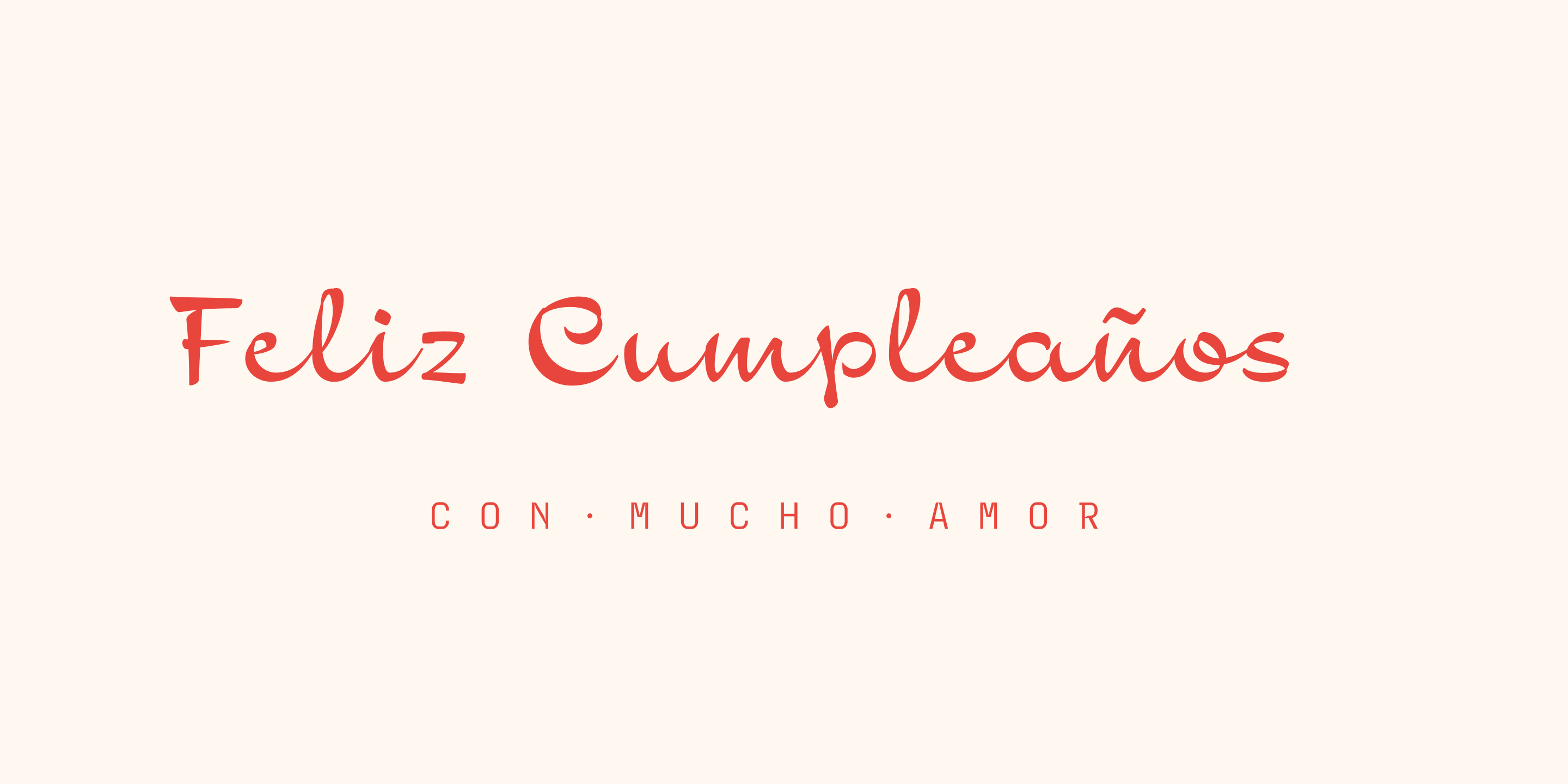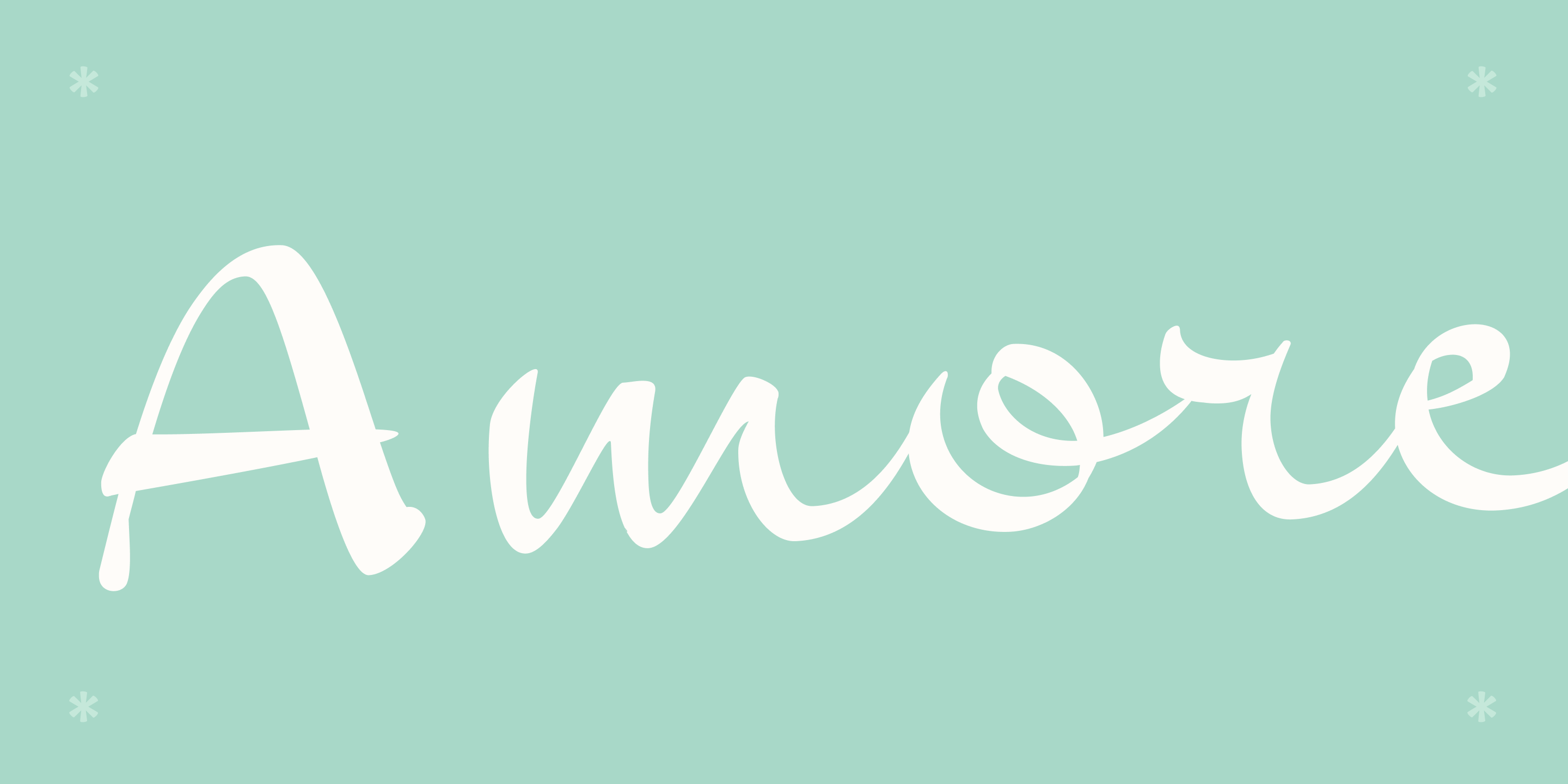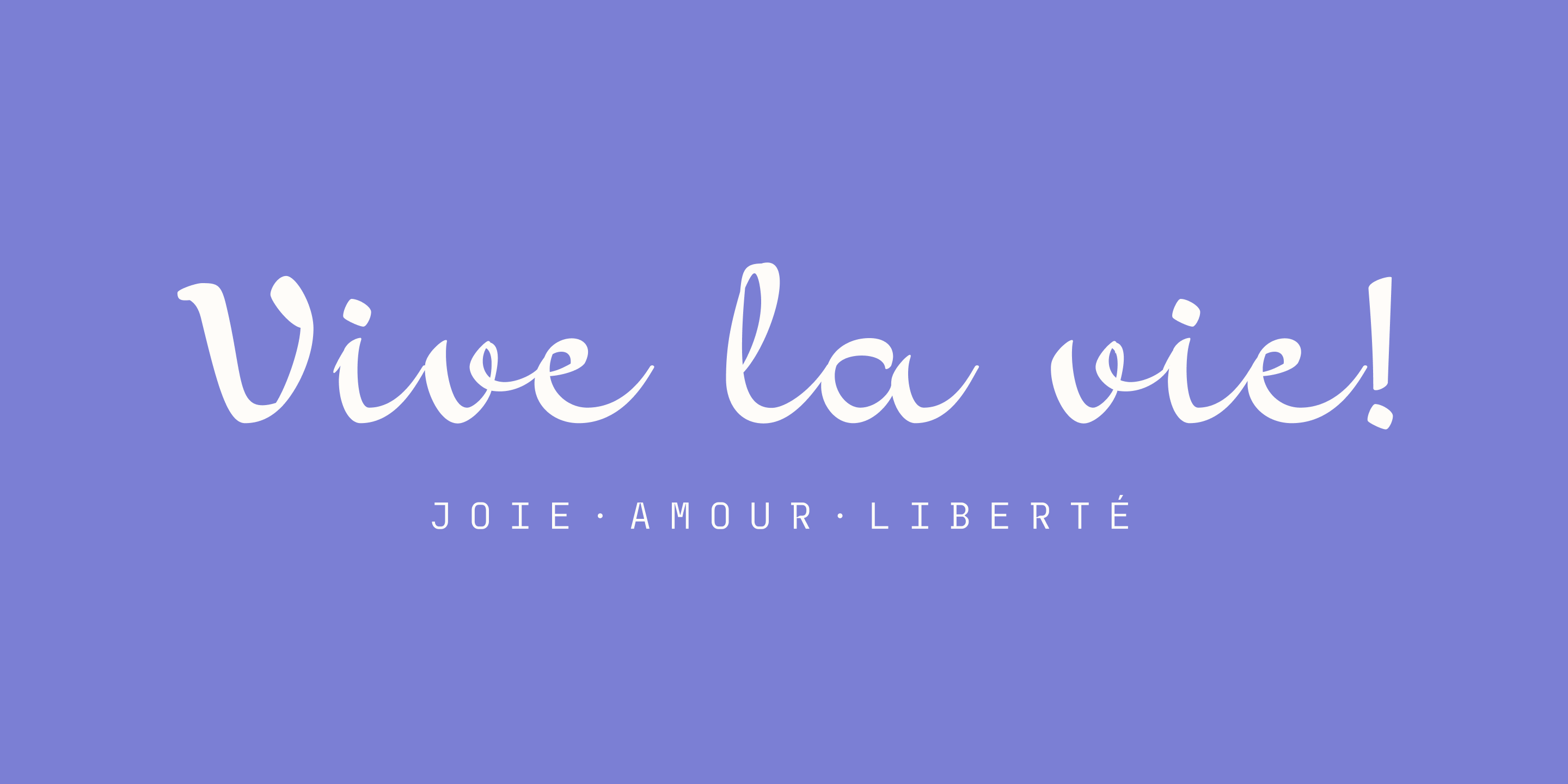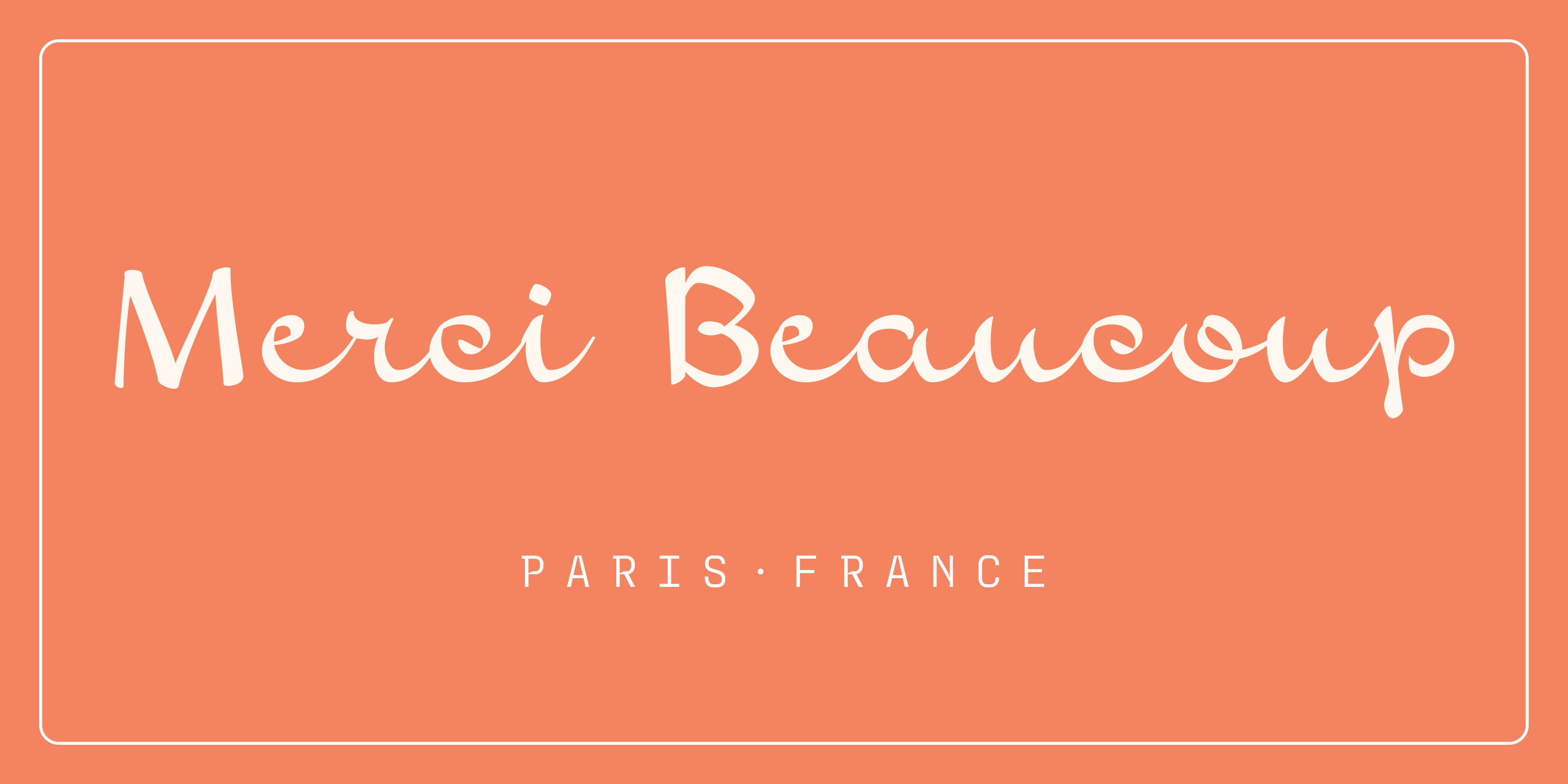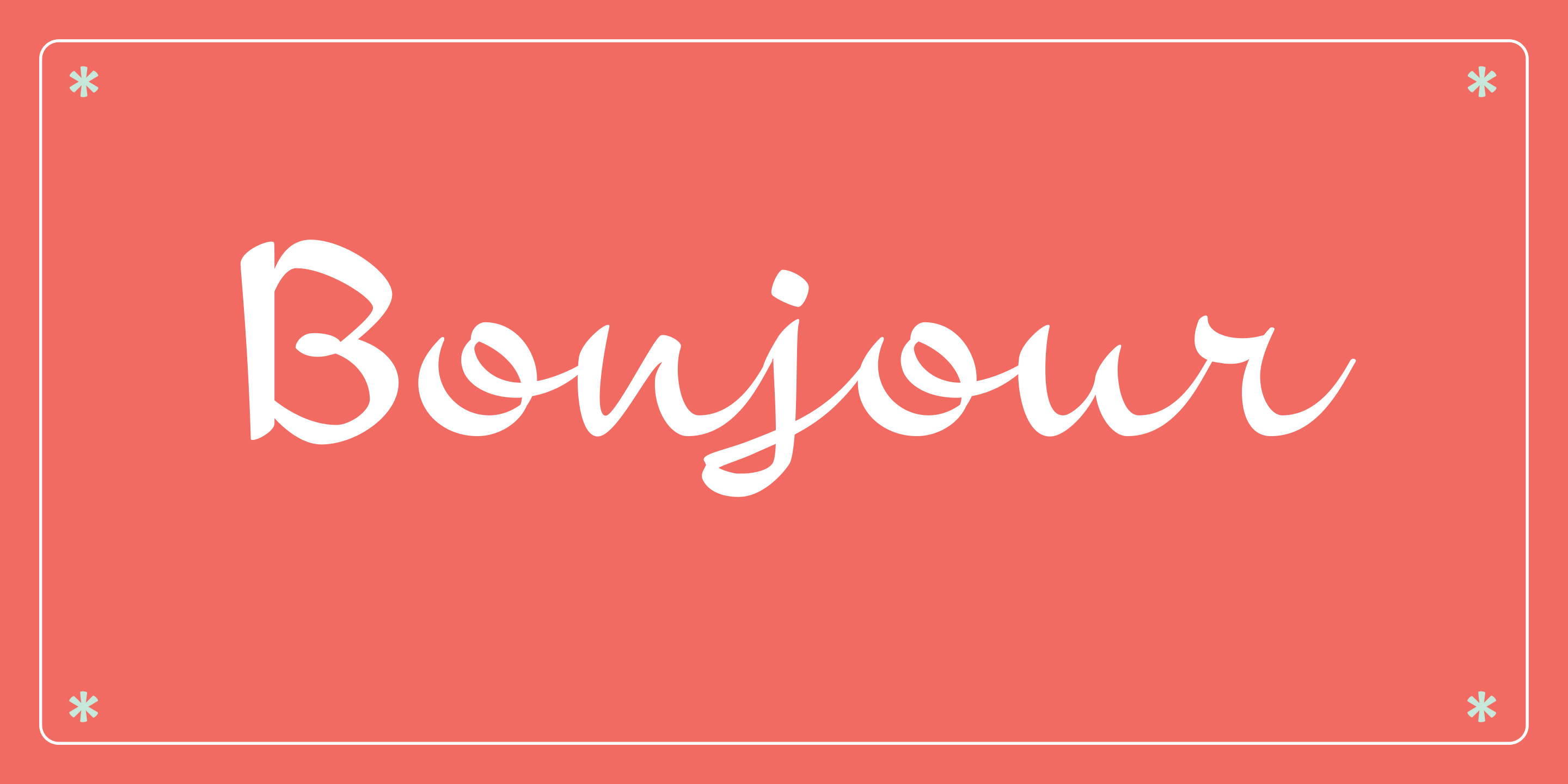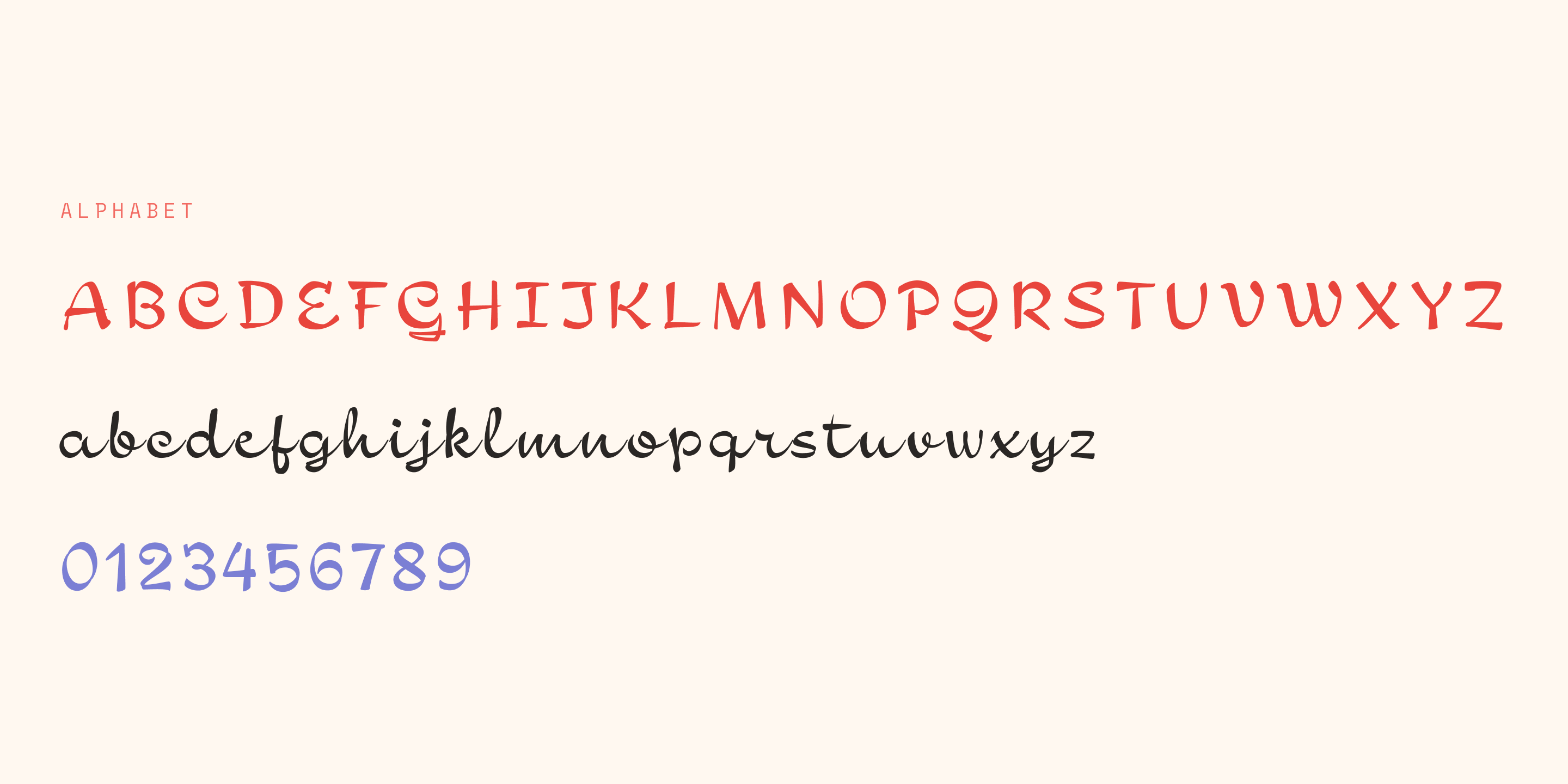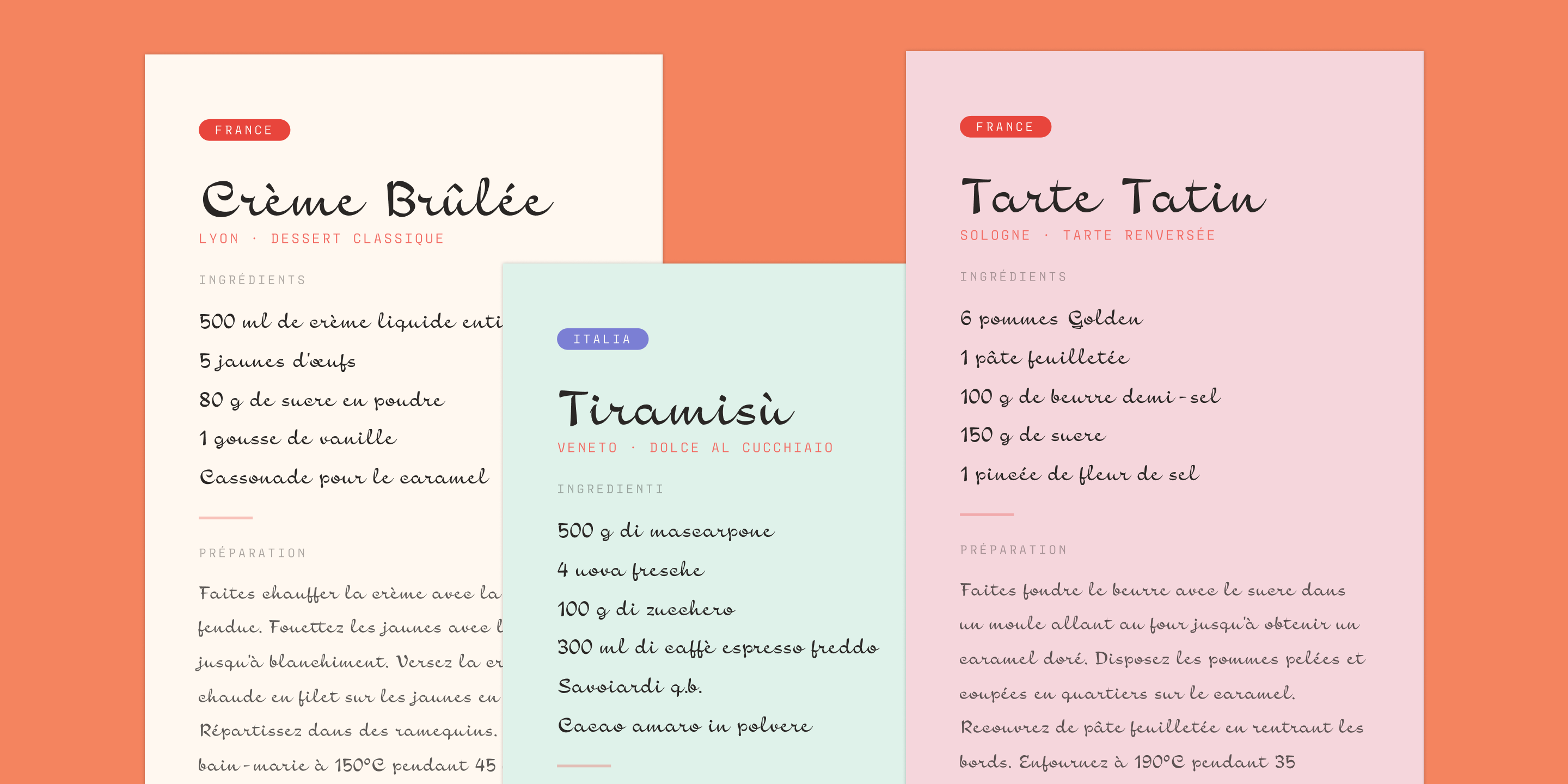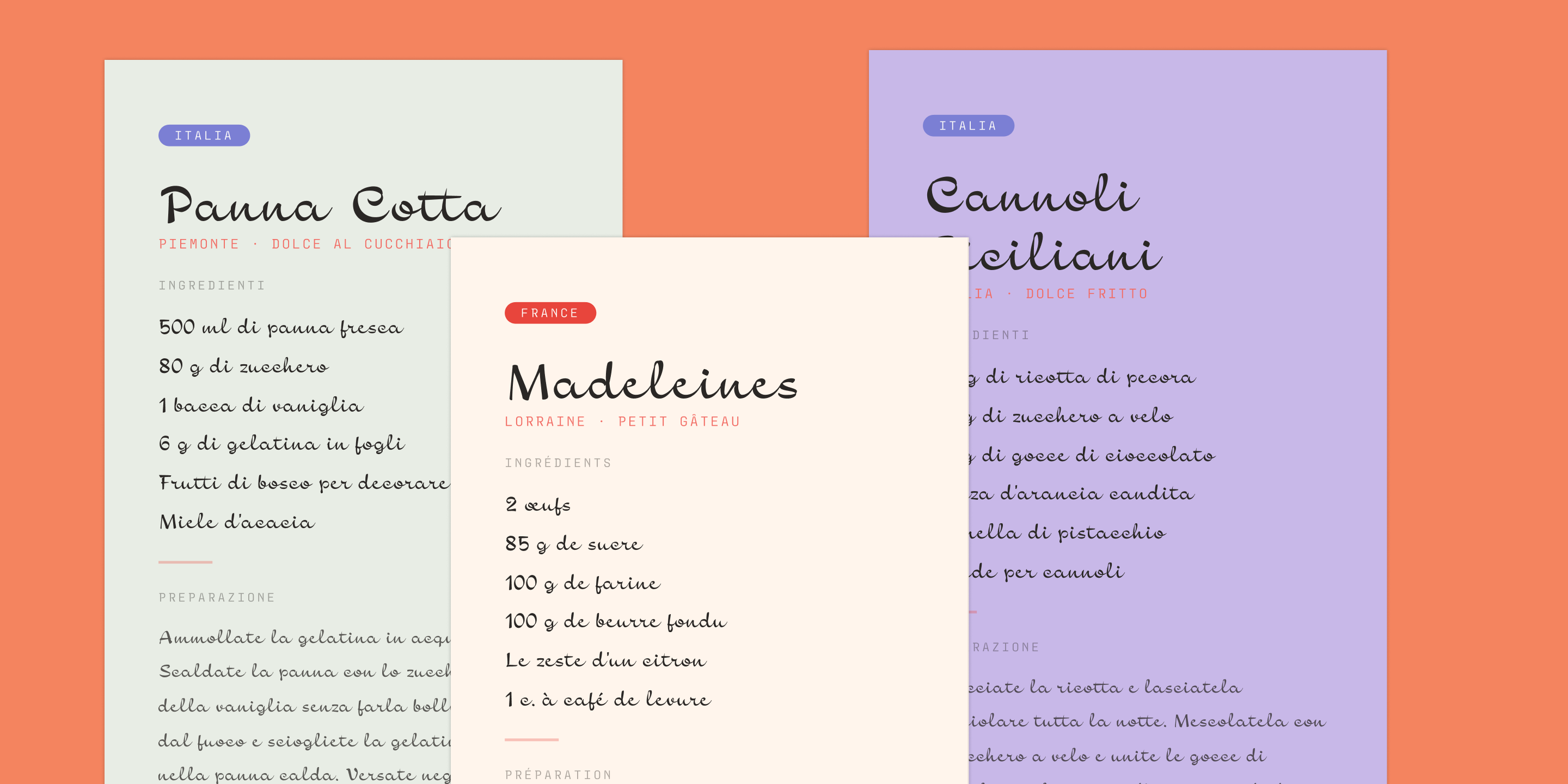
Piccola
Designed by Resistenza Type FoundryA warm, hand-lettered typeface with the soul of a vintage café sign and the charm of an Italian pasticceria. Its upright style carries the confident energy of a marker-drawn inscription — slightly irregular, never sloppy — while the companion script flows with generous swashes and a naturally bouncy rhythm. Together they form a coherent system built for food, lifestyle, and artisan brands that want personality without losing elegance. Multilingual from the ground up, with carefully drawn accents, punctuation, and special characters that feel native rather than borrowed.